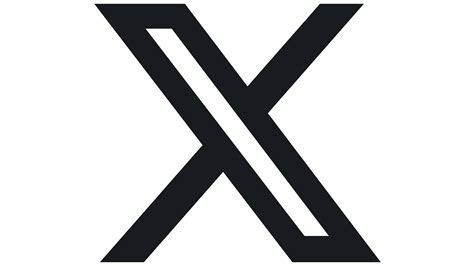
X Logo Font. Web the new logo is also nearly identical to the lowercase x in the monotype font special alphabet 4. what.
Web the new logo is also nearly identical to the lowercase x in the monotype font special alphabet 4. what.
Web the new logo is also nearly identical to the lowercase x in the monotype font special alphabet 4. what. Web the new logo is also nearly identical to the lowercase x in the monotype font special alphabet 4. what.